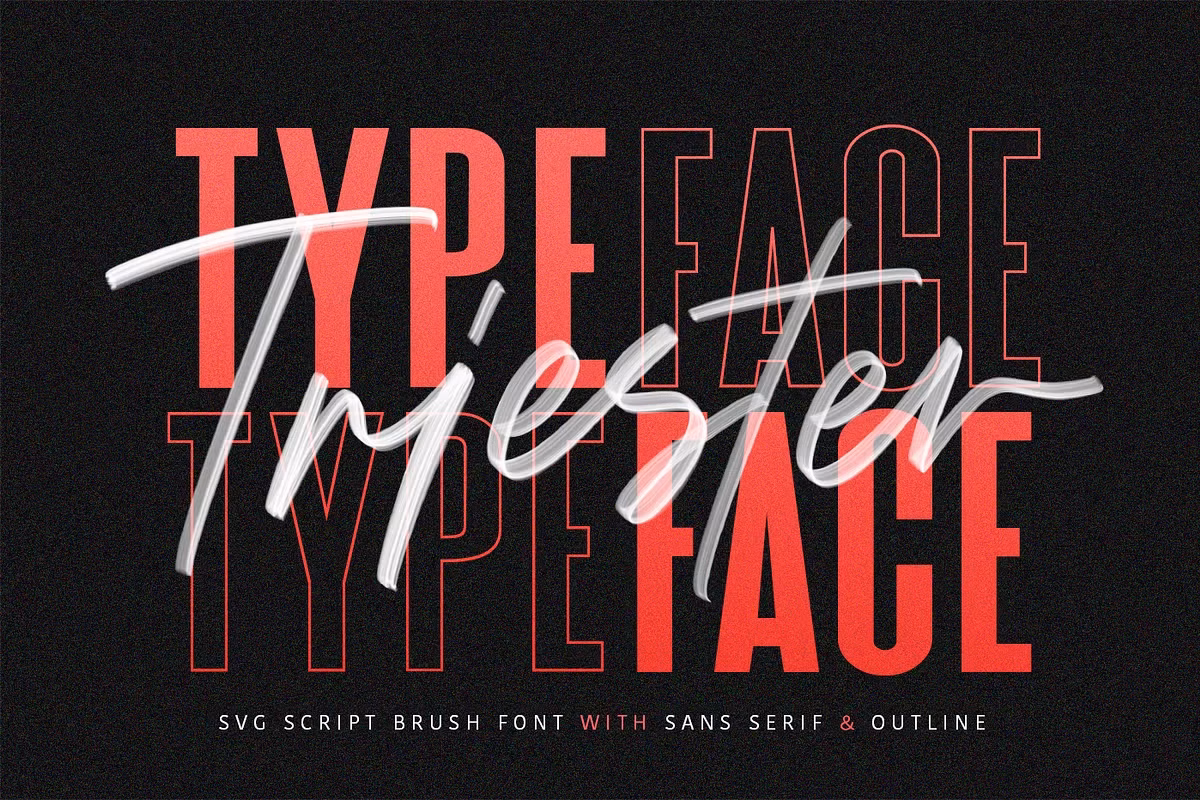
Triester SVG Brush Font Free Sans
Add energy and creativity to your designs with Triester SVG Brush Font Free Sans — a bold and dynamic typeface that combines the raw beauty of brush strokes with the clean, modern feel of a sans-serif font. Perfect for posters, branding, social media graphics, logos, and any creative project that requires a fresh, expressive look.
The unique brush style in Triester gives each letter a handmade feel, adding personality and flair to your typography. This font includes uppercase and lowercase letters, punctuation, numerals, and multilingual support — giving you the freedom to experiment with bold, expressive designs.